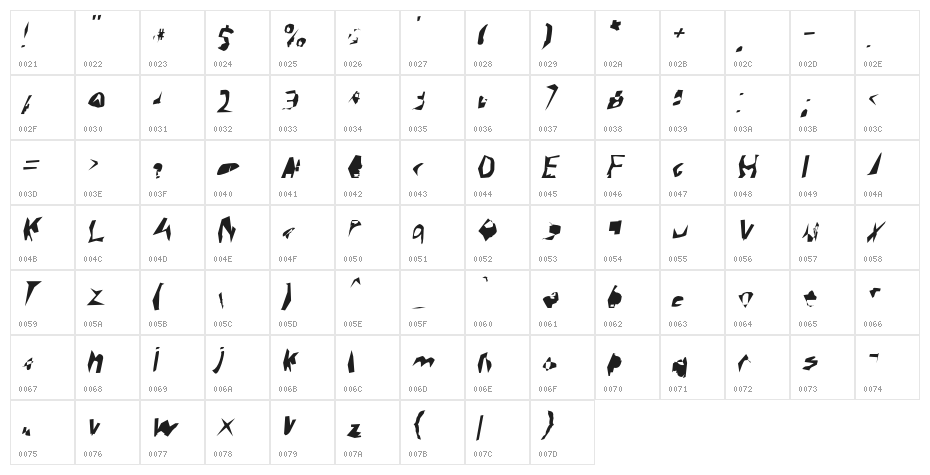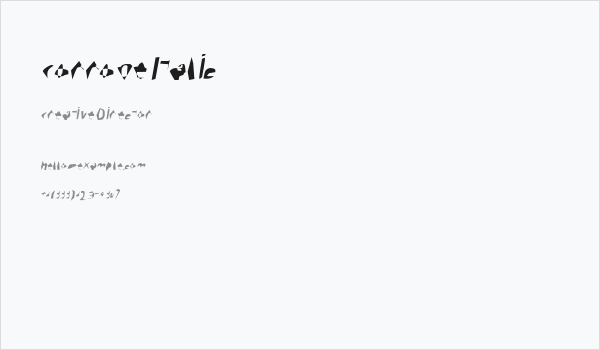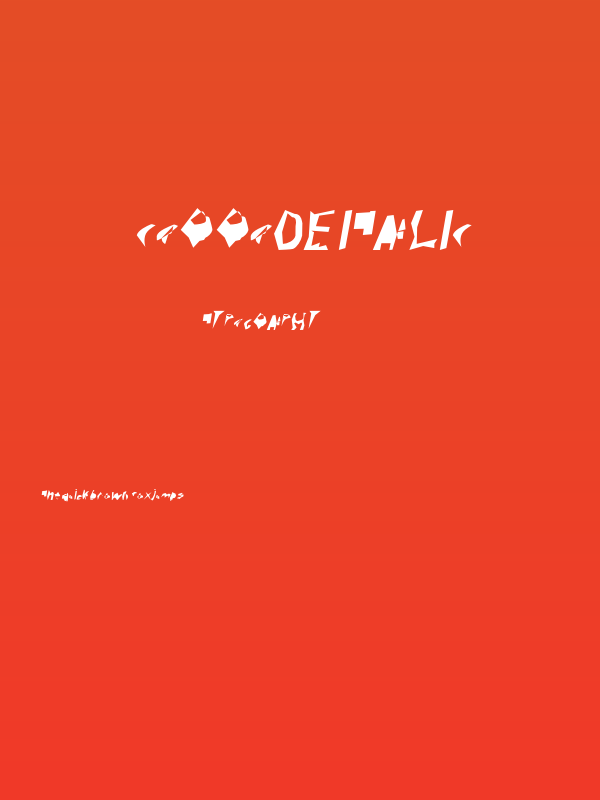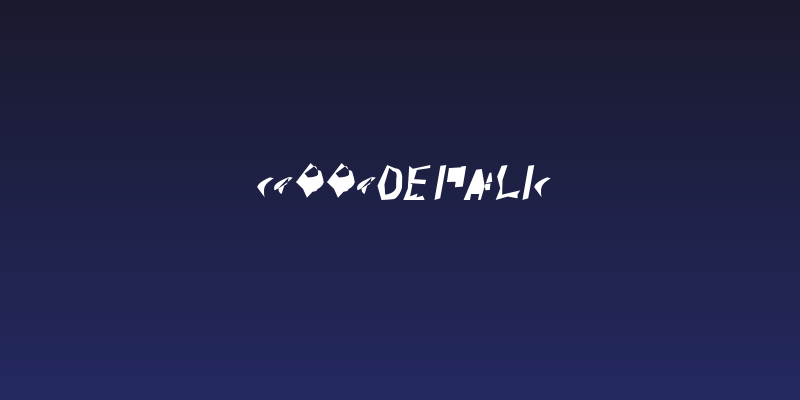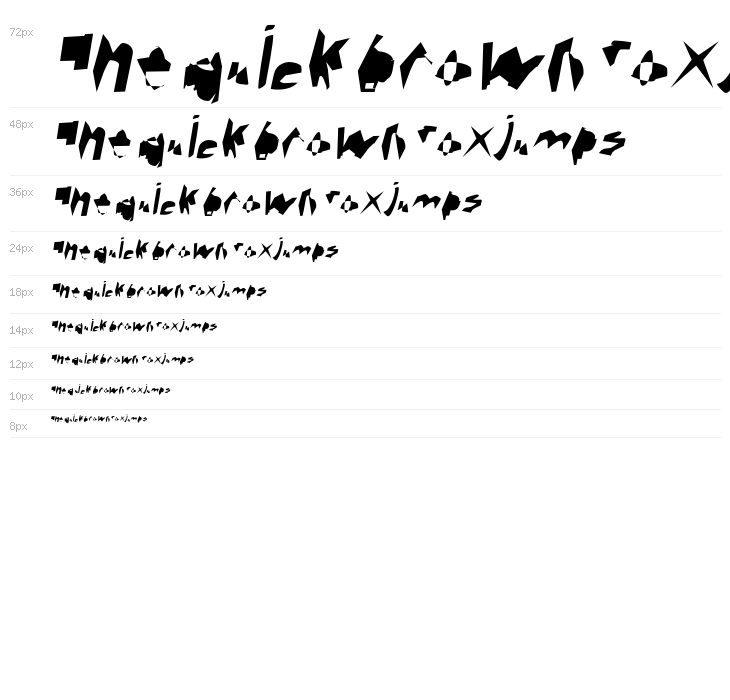
Corrode Italic Font
Corrode Italic Description
This font is a striking and unconventional design, characterized by its fragmented and distressed appearance. Each character appears as if it has been eroded or corroded, giving it a unique and edgy look. The letters are bold and angular, with sharp edges and irregular shapes that create a sense of movement and chaos. This style is particularly effective for creating a gritty, industrial aesthetic. The font maintains a consistent weight throughout, ensuring readability despite its unconventional form. Its high contrast between thick and thin strokes adds to its dramatic impact, making it suitable for attention-grabbing designs.
Proposed ProjectsIdeal for album covers, posters, and branding that requires a gritty, industrial look.